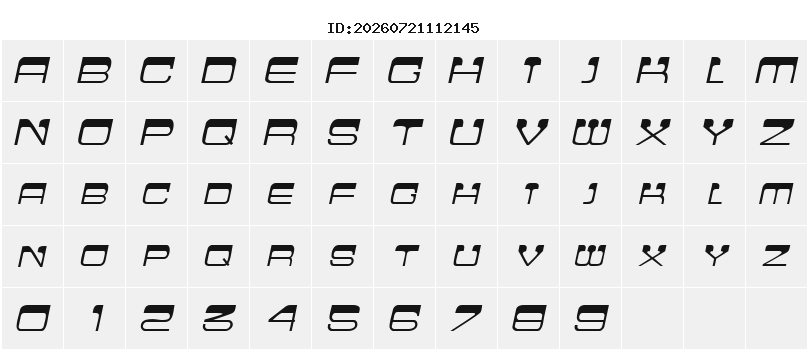
• Font Name: FlatTopSCapsSSK
• Font ID: Macromedia Fontographer 4.1 FlatTopSCapsSSK Italic
• Full Font Name: FlatTopSCapsSSK Italic
• Version: Macromedia Fontographer 4.1 8/15/95
• PostScript Name: FlatTopSCapsSSKItalic
• Character Count: 92
About FlatTopSCapsSSK.ttf
FlatTopSCapsSSK.ttf is a modern, elegant sans-serif font designed for ultimate readability and visual harmony. Perfect for branding, headlines, web design, and print materials.